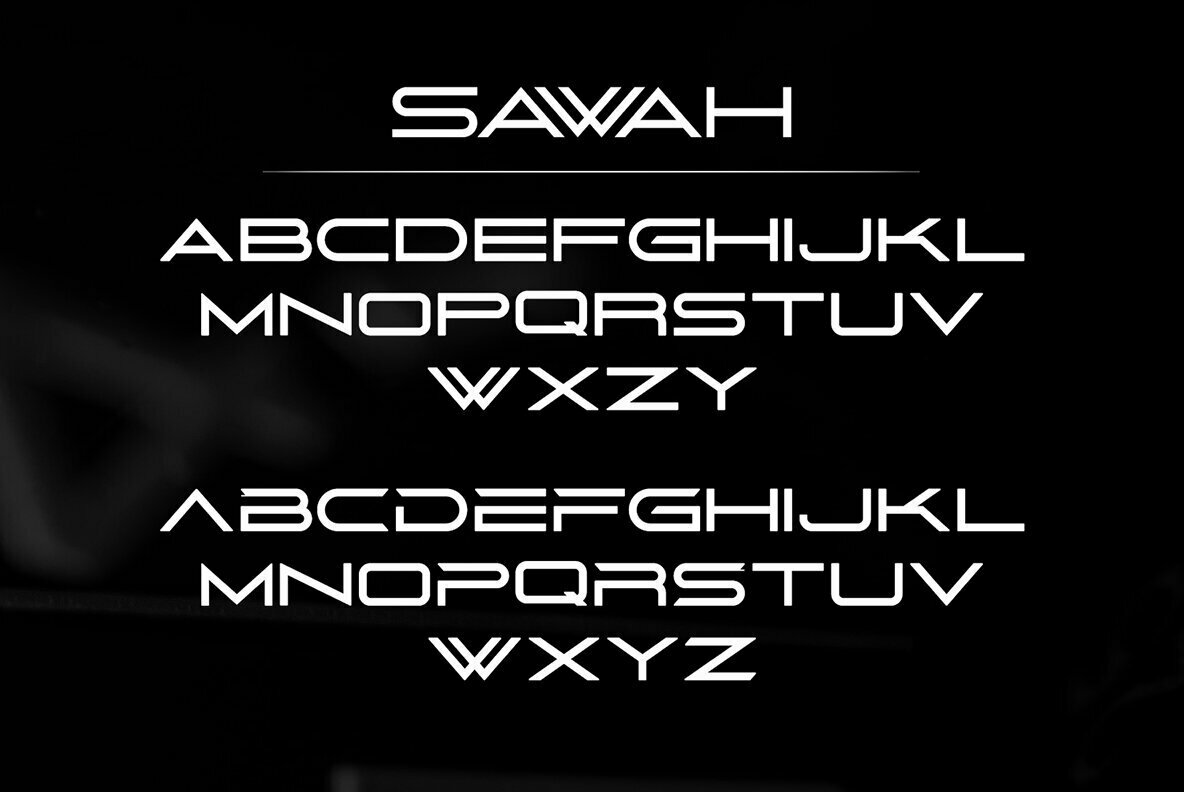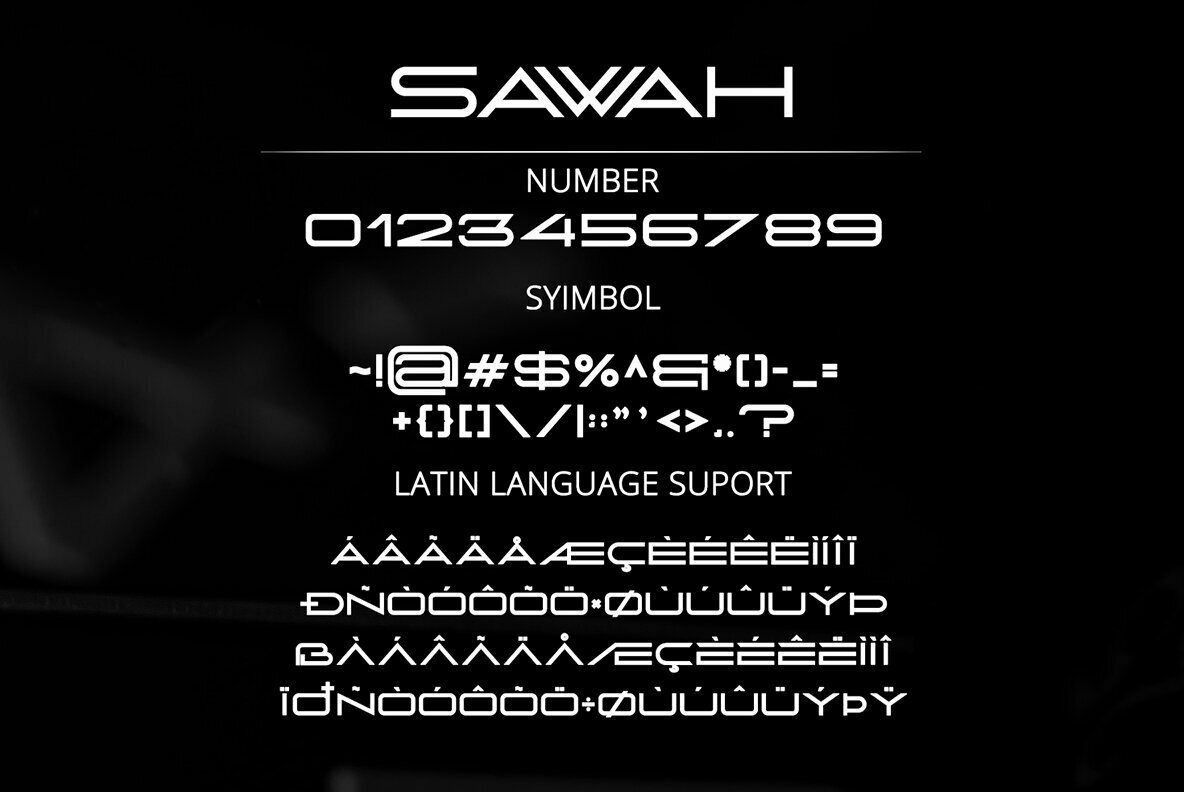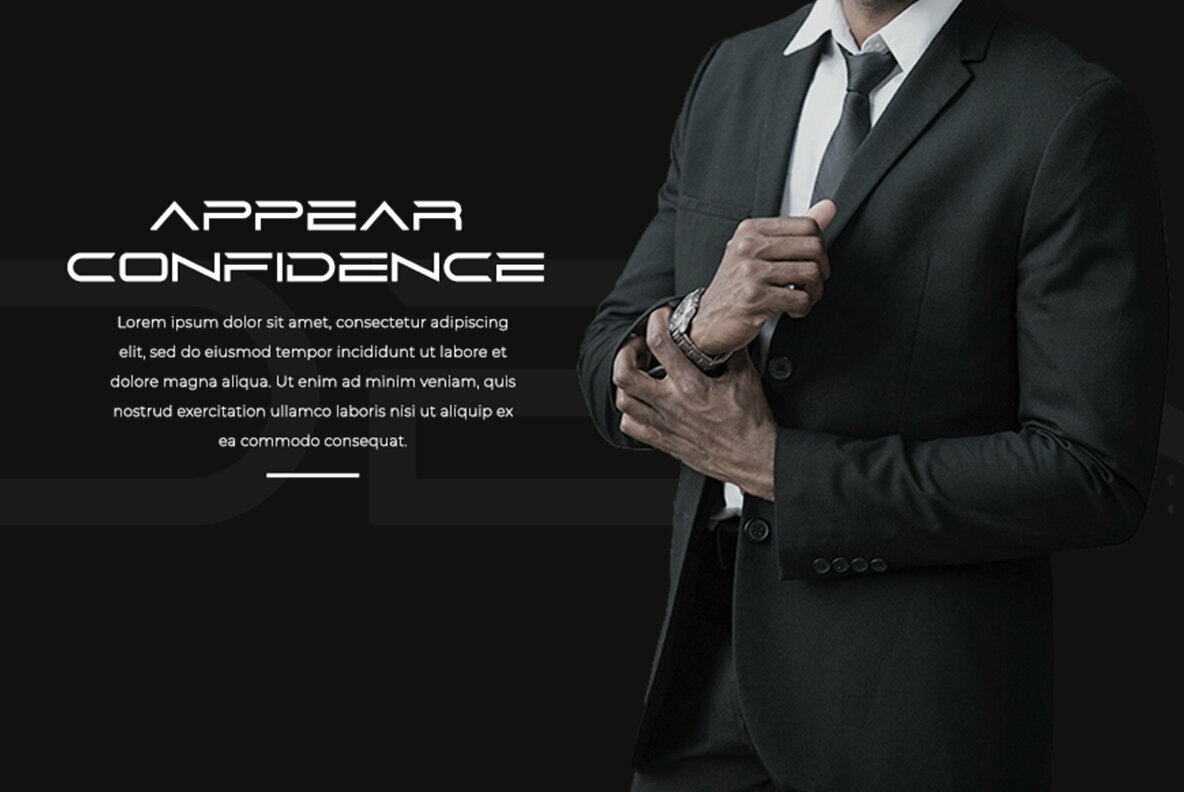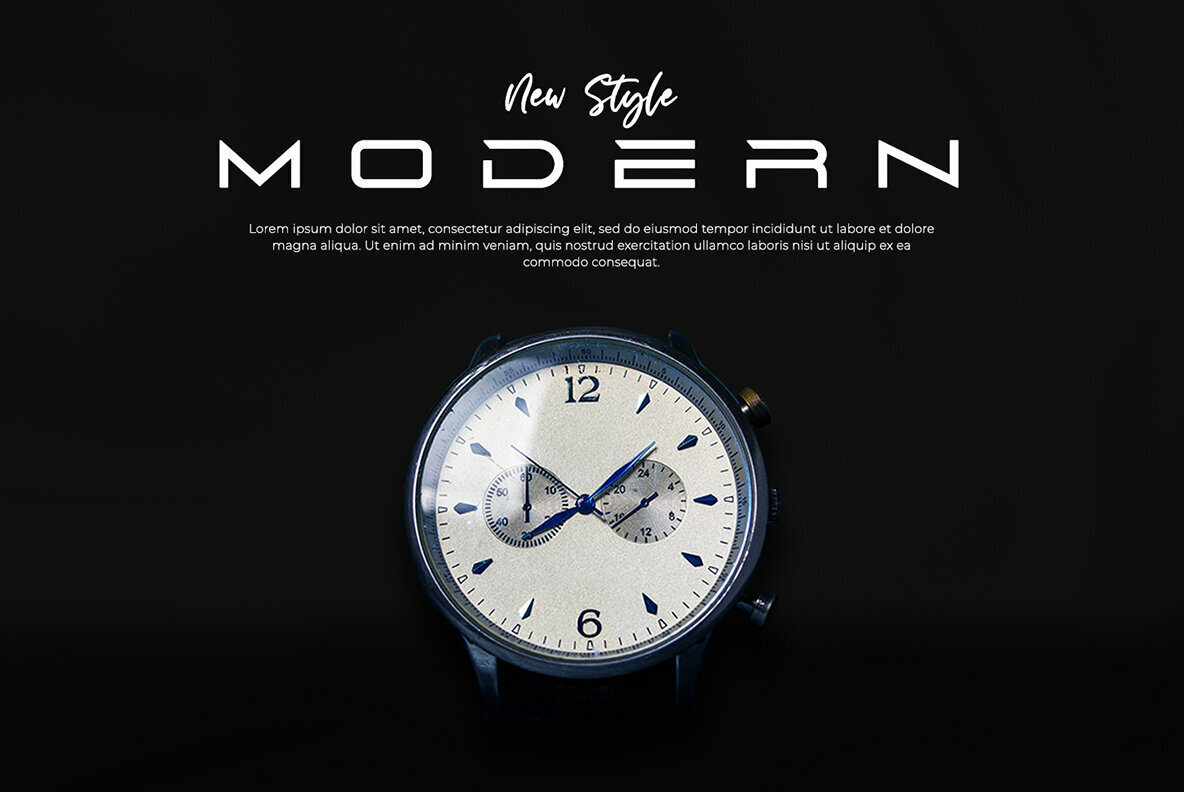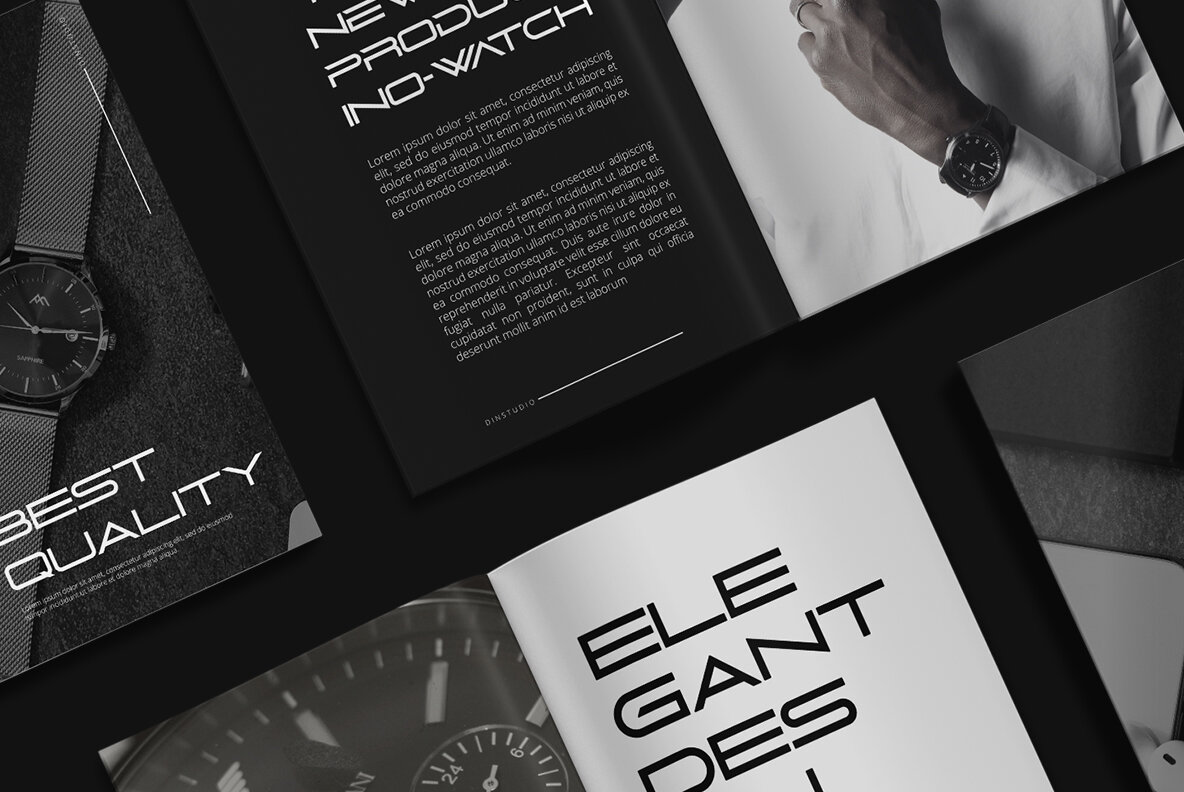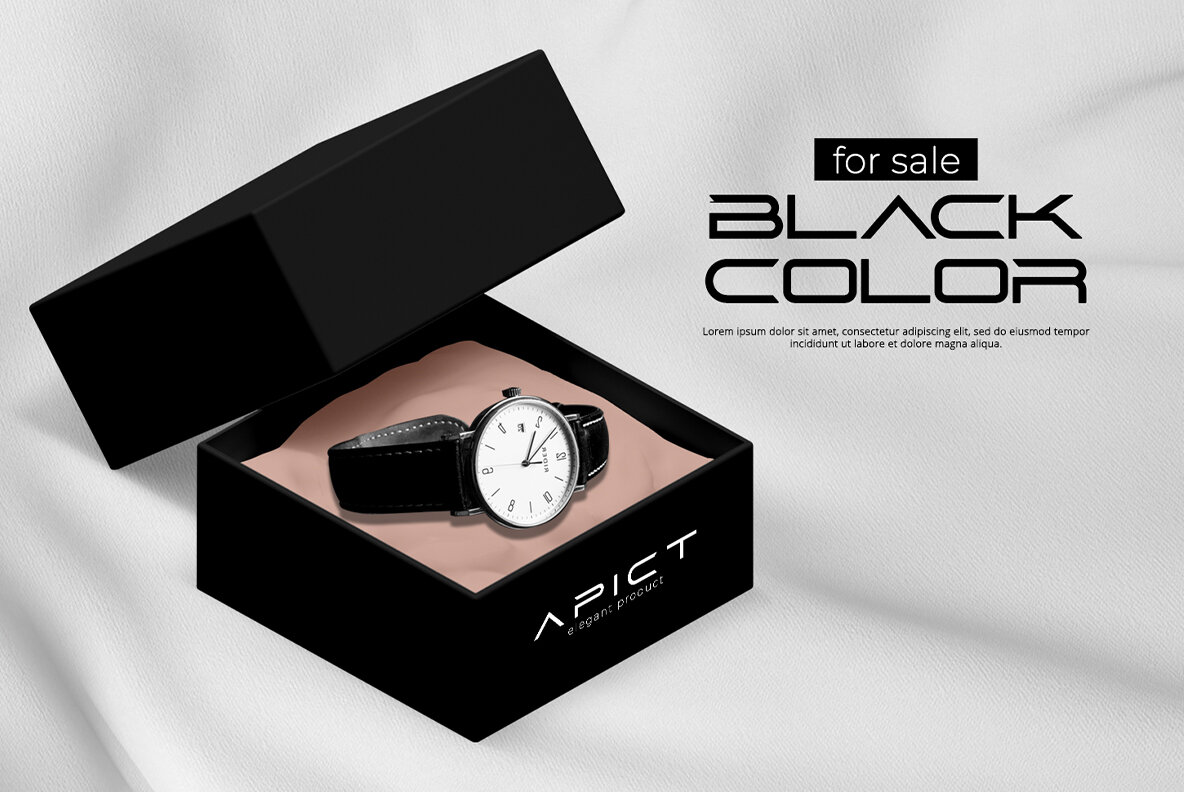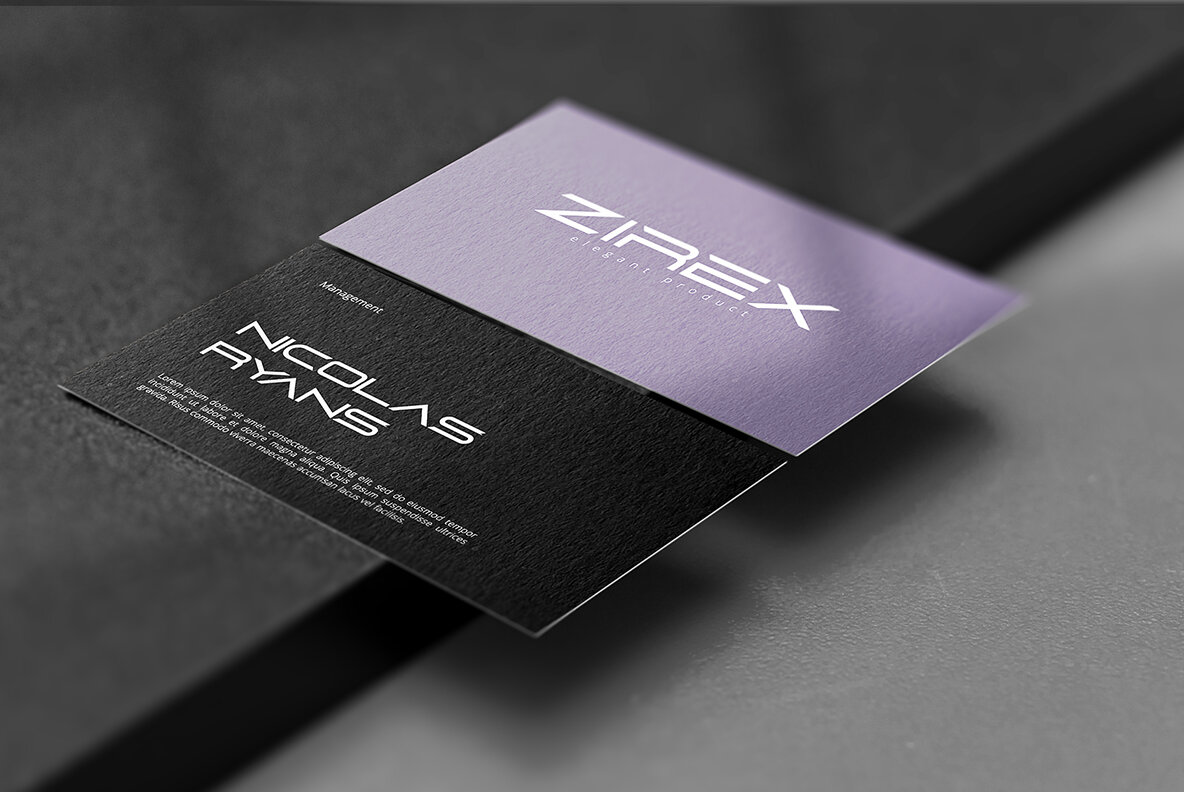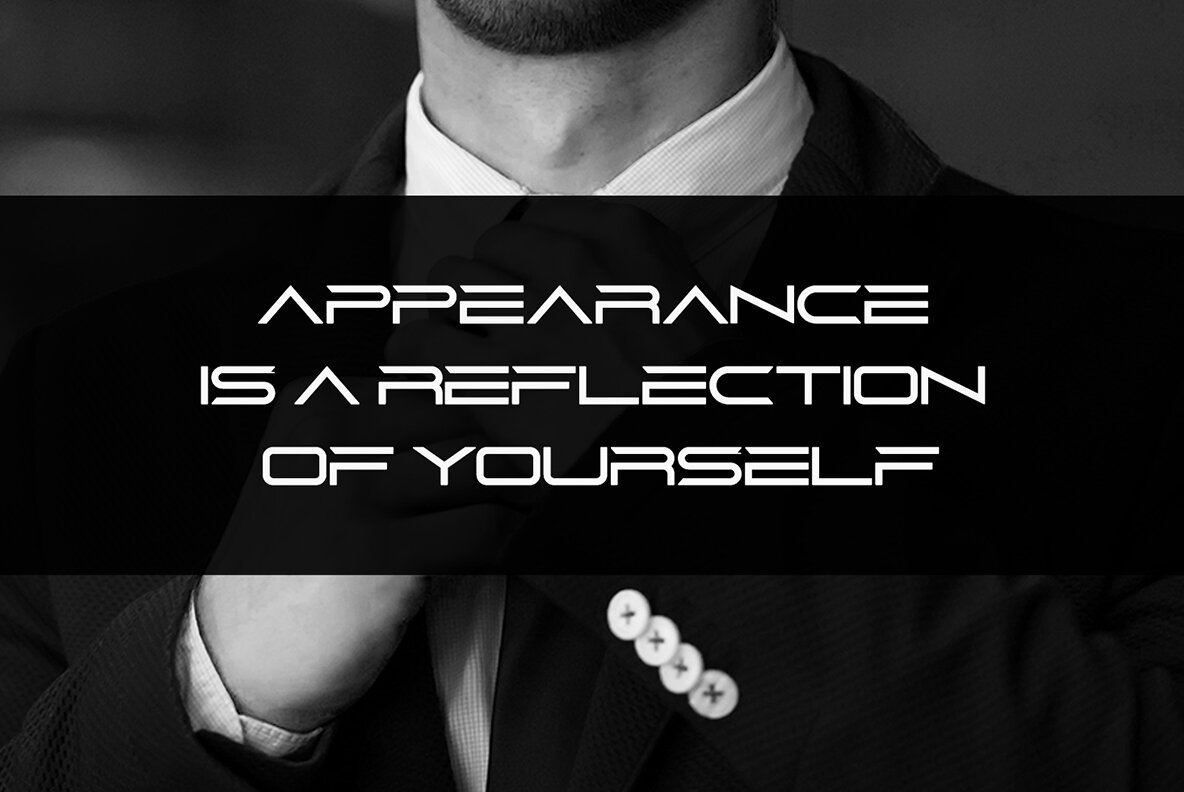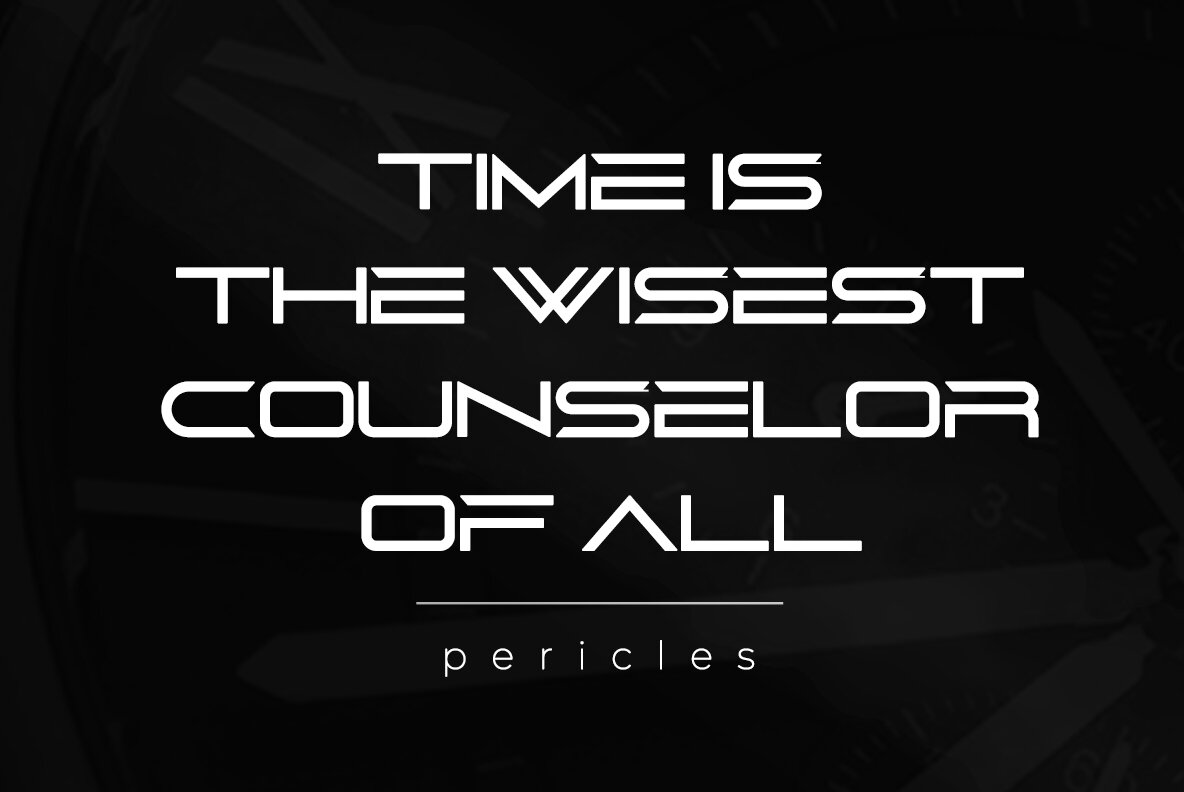
Sawah Font
Sawah
Sawah, a distinguished creation by Din Studio, stands out as a modern and elegant display font. Its abstract shapes celebrate the eclectic beauty found in diversity. This typeface is ideally suited for a variety of contexts, making it an exceptional choice for logos, branding, and compelling quotes.Sawah: Modern Elegance in Display Typography